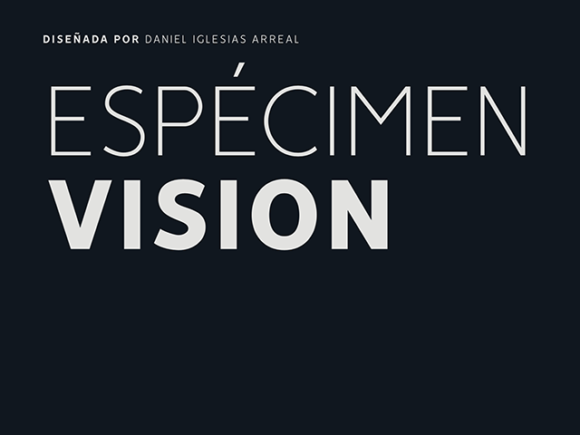
Take a look at this gorgeous free vision a geometric and humanist typeface. This typeface file was found from the amazing source called Freebies Bug. Easily amaze your audience with this fancy font and make your graphic designs pop up from the crowd.